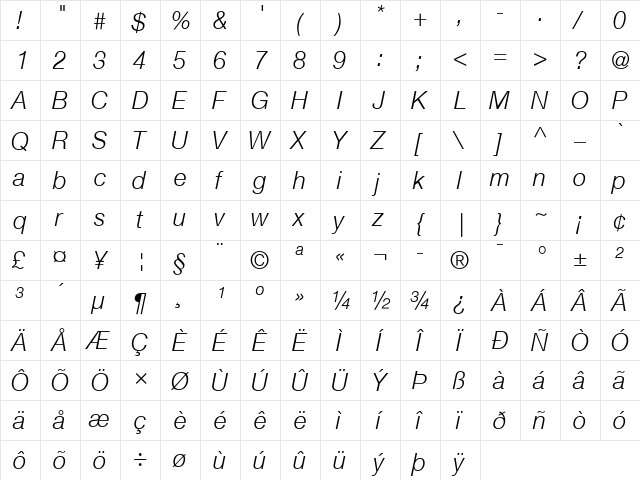
Helvetica 45 Light Italic Font Preview
Design Context for Helvetica 45 Light Typeface
Helvetica 45 Light offers clean, dependable letterforms without strong stylistic allegiance, making it a practical choice for designers who need flexibility. Its italic angle brings a sense of urgency and motion to the letterforms. The delicate stroke weight brings airiness and refinement to layouts.
Pro Tip: Try Helvetica 45 Light for annotation and caption copy alongside an upright companion — the contrast in angle creates a dynamic but ordered typographic system.